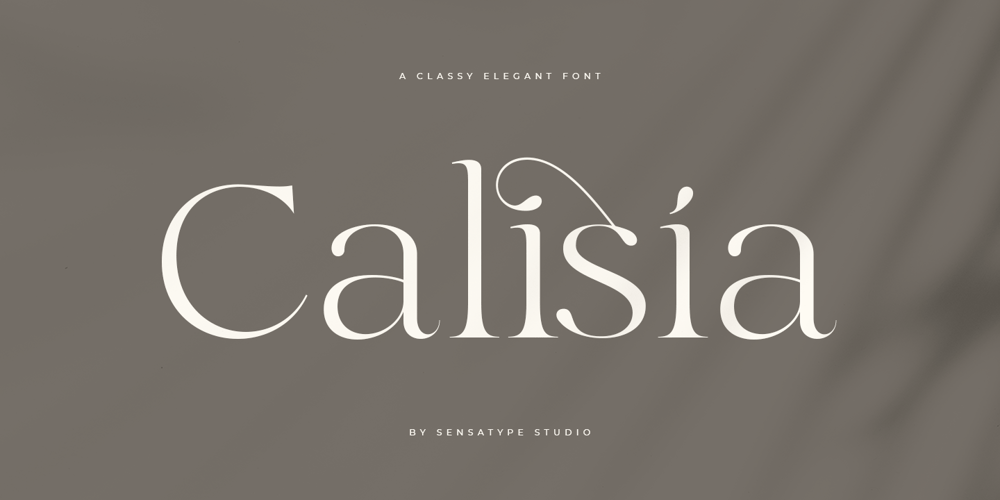
Calisia
Calisia font
Calisia Font Family was designed by Zamroni Hamzah and published by Sensatype Studio. Calisia contains 3 styles and family package options. A serif that we created special for elegant branding needs, with extra ligature and alternates in unique shape will be ready to add value of your brand. It so nice to leverage designer or product owner that need solutions to make their design look more classy and modern. And specially for Calista font, We prepared any ligatures, and any alternate characters to help you create unlimited variations for your creative needs.Calisia sans serif font ready with: Any options to get creative variations (combination of Alternate and Ligatures) Ready 3 Weights (Light, Regular, and Bold) Preview as a inspirations that you can do with Calisia font Ready with Lowercase and Uppercase characters Wish you enjoy our font. 🙂